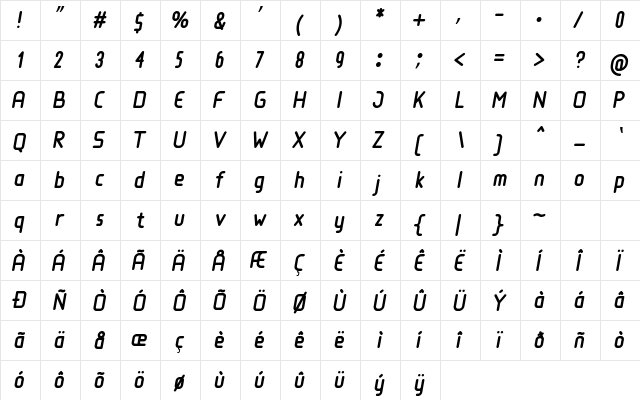
Loja Italic
Design Context for Loja Typeface
Loja takes a measured approach to typography — its balanced proportions and neutral character make it a reliable workhorse for both digital and print work. The dynamic lean of this cut emphasises speed and emphasis in any layout.
Pro Tip: Try Loja for annotation and caption copy alongside an upright companion — the contrast in angle creates a dynamic but ordered typographic system.